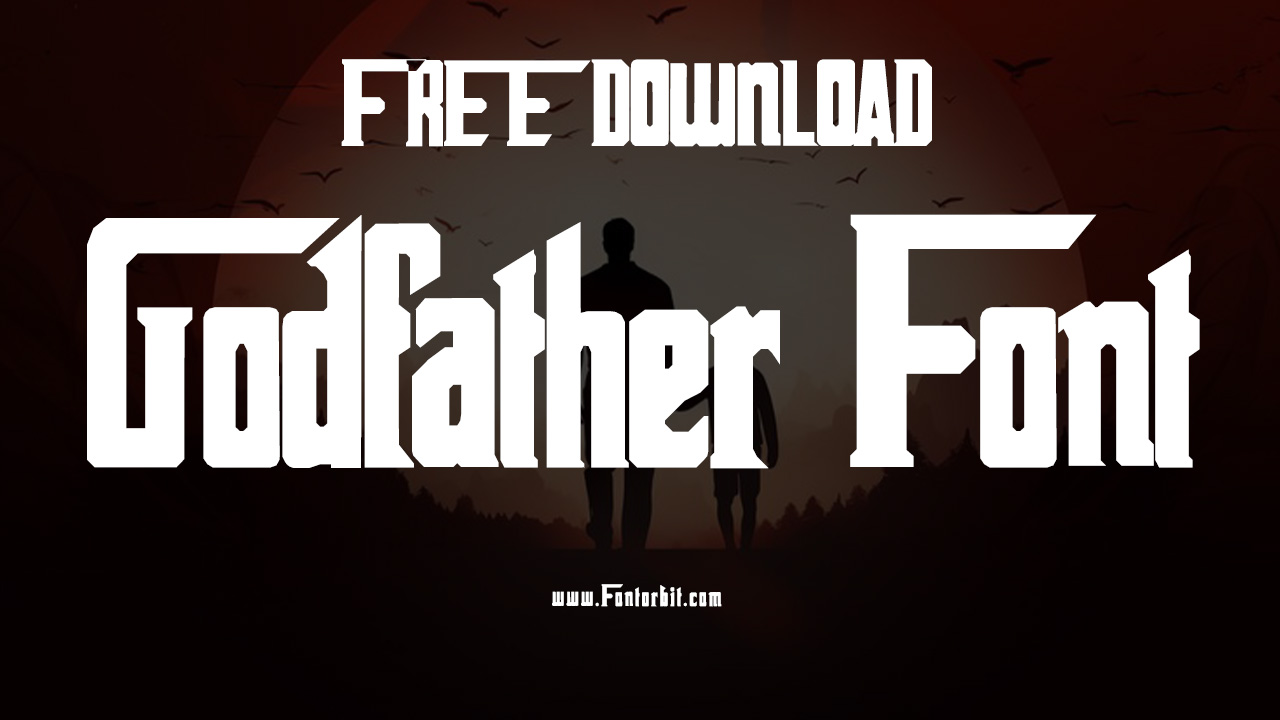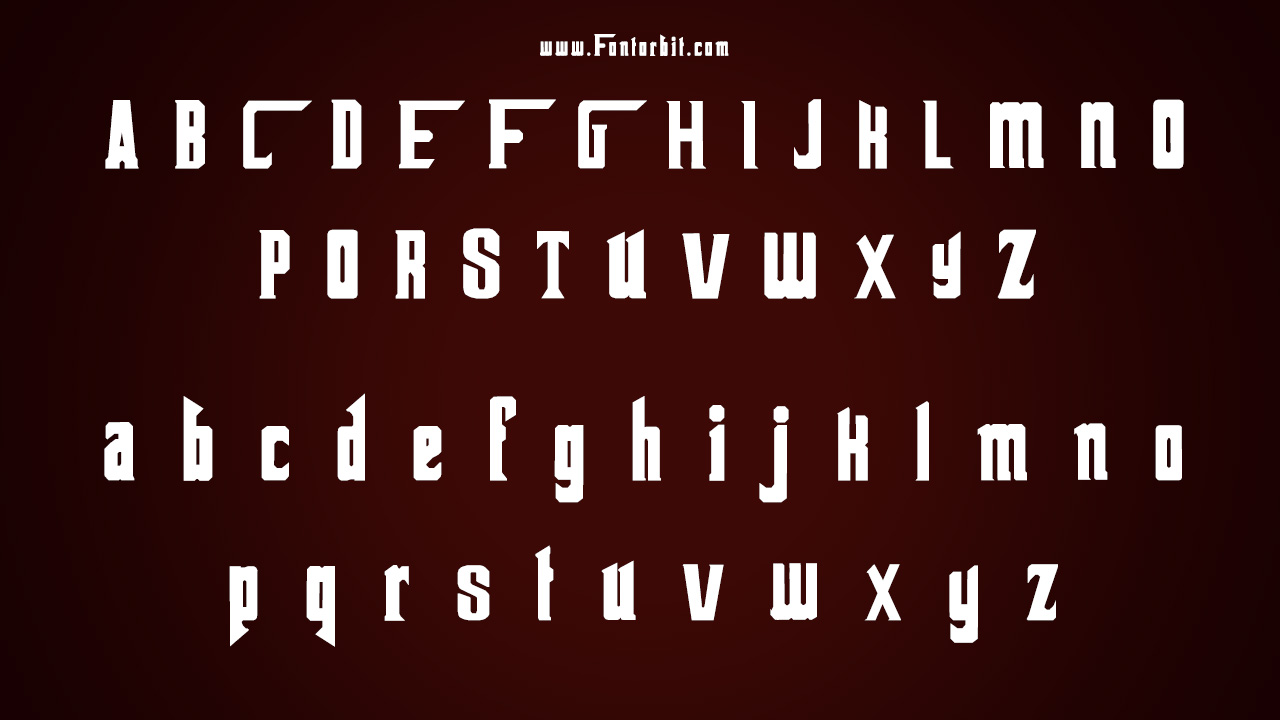
The Godfather Font is an iconic typeface inspired by the legendary film The Godfather. Known for its classic and sophisticated style, this font captures the essence of the movie’s branding and is perfect for various design applications. The Godfather logo font resembles closely with the font Corleone by Michael Hagemann created in 2001.
The Godfather Font is a display typeface characterized by its elegant serif design. It embodies the timeless look of classic cinema, making it a popular choice for projects that aim to convey a sense of drama and sophistication. The font family includes:
The Godfather Font is ideal for adding a touch of cinematic flair to various creative projects. Its elegant design makes it well-suited for:
- Movie posters
- Banners
- Wall Murals
- Branding for film-related content
- Merchandise graphics
- Book covers
- Stylish text overlays on images
- Event Invitations
The Godfather Font Found In Use
The Godfather Font is a sophisticated typeface perfect for a range of creative uses. It’s ideal for making a bold statement in headlines, enhancing branding materials, and adding an elegant touch to any design project. Whether for personal or commercial use, the Godfather Font brings a classic cinematic edge to your work.
1.What Are The Characteristics Of The Godfather Font?
The Godfather Font is a display typeface with elegant serifs and a classic design, capturing the essence of the iconic film.
3.What Are The Limitations Of Using Godfather Font In Design?
Its dramatic style may not suit more modern or minimalistic designs and could overwhelm projects requiring a simpler approach.
5.What Are The Differences Between Godfather Font And Other Display Fonts?
The Godfather Font features elegant serifs and a classic style, while other display fonts may vary in character, ranging from modern to ornate designs.
9.What Styles Are Popular In Godfather Fonts?
Classic, elegant, and dramatic styles are popular, offering a timeless look suitable for various creative applications.